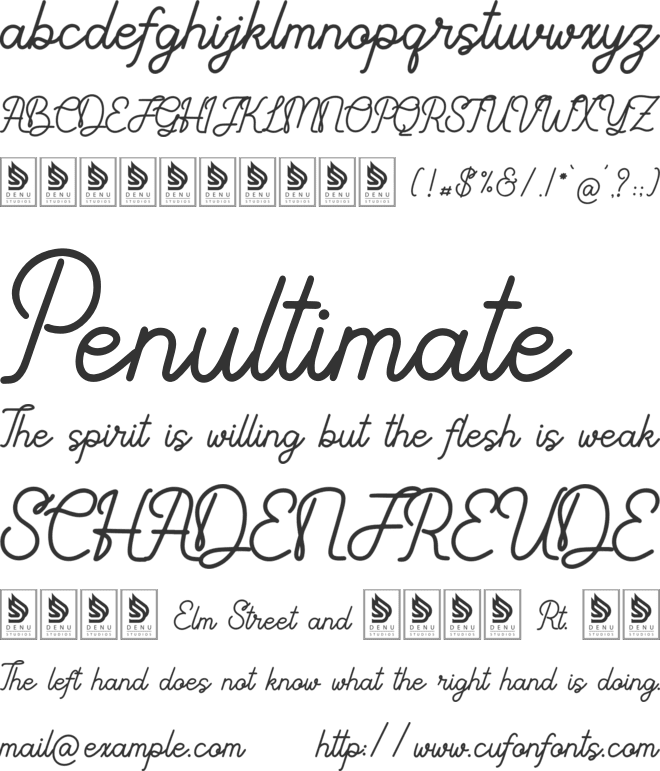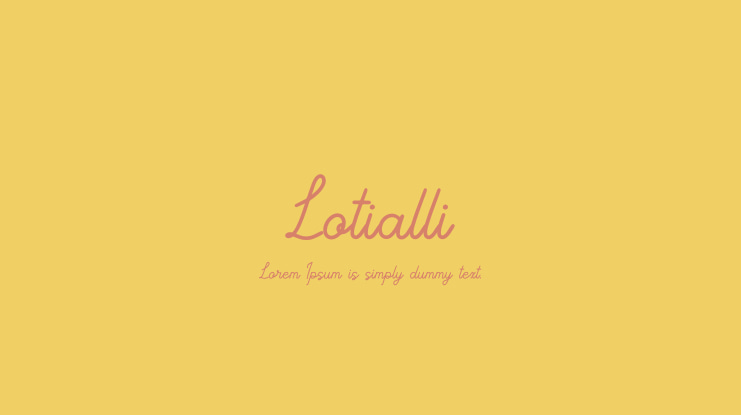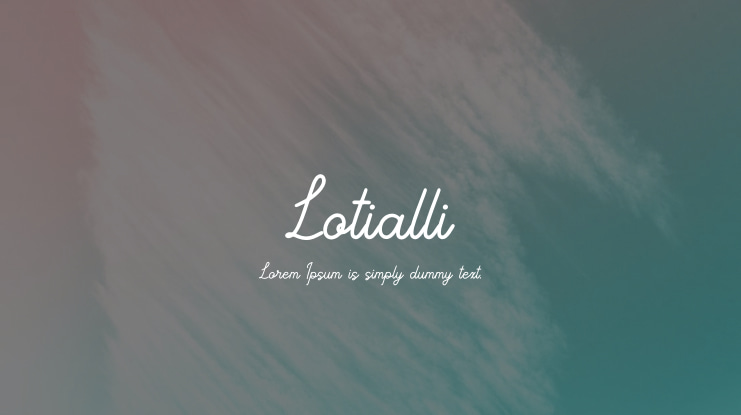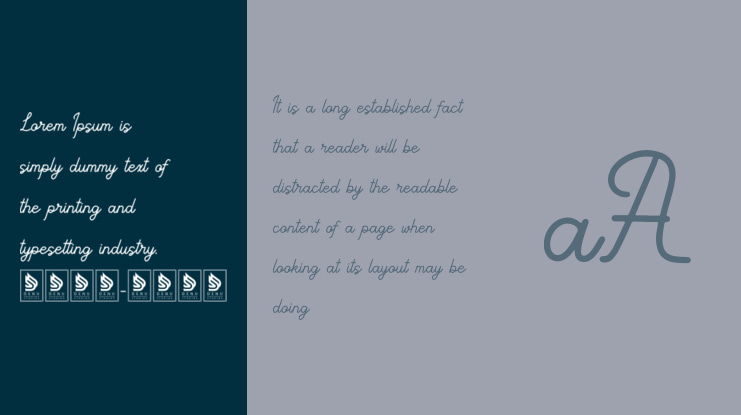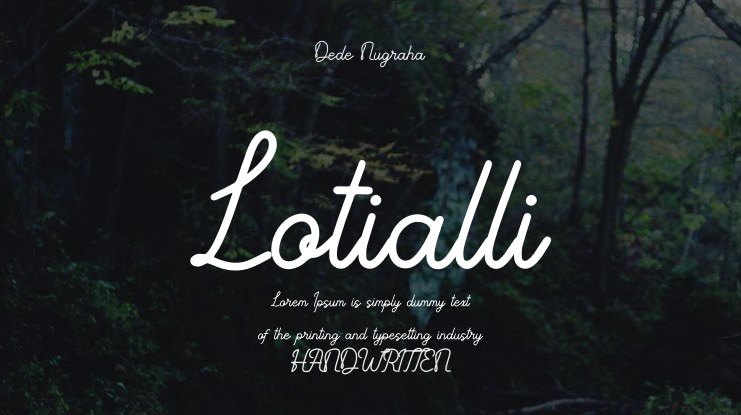
Dede Nugraha
**Lotialli | Monoline Script Font**
**Suitable for Projects:**
Lotialli Monoline Script Font is perfect for various projects including logos, branding, homeware designs, product packaging, mugs, quotes, posters, shopping bags, t-shirts, book covers, name cards, invitation and greeting cards, labels, photography, watermarks, special events, and many more creative endeavors needing a Monoline Script Font style.